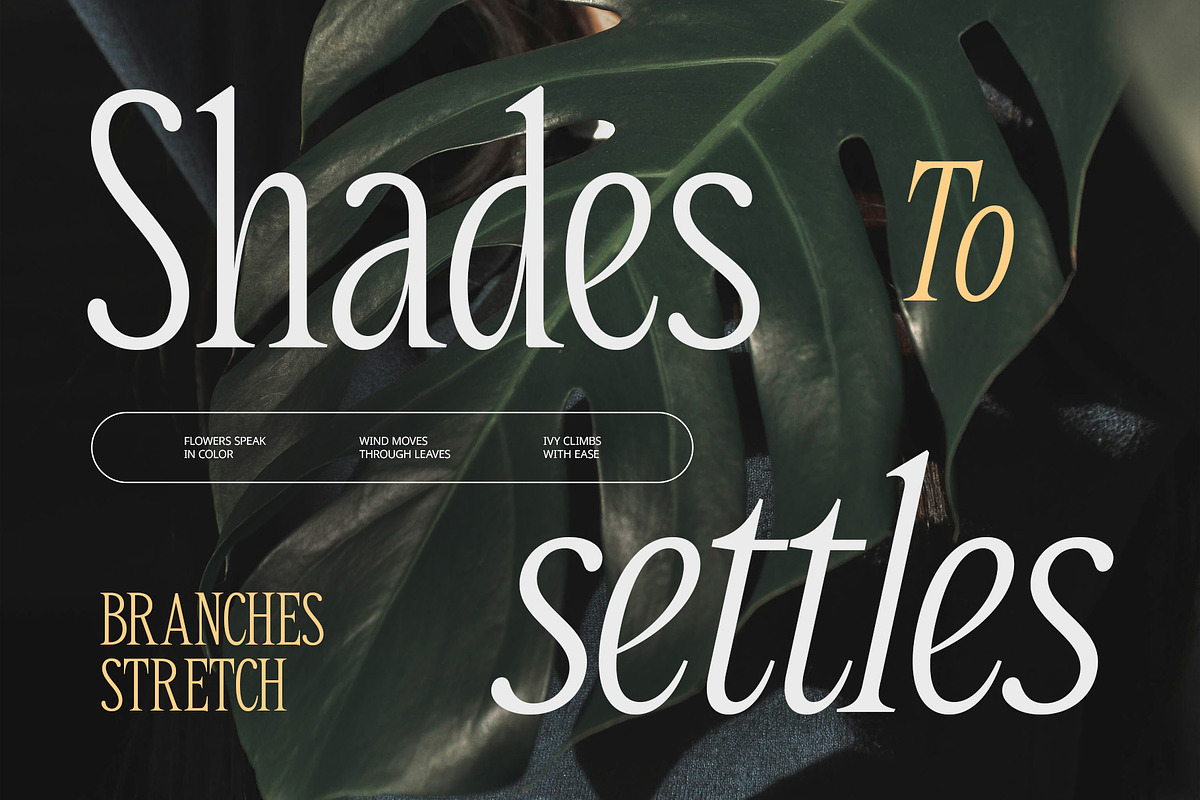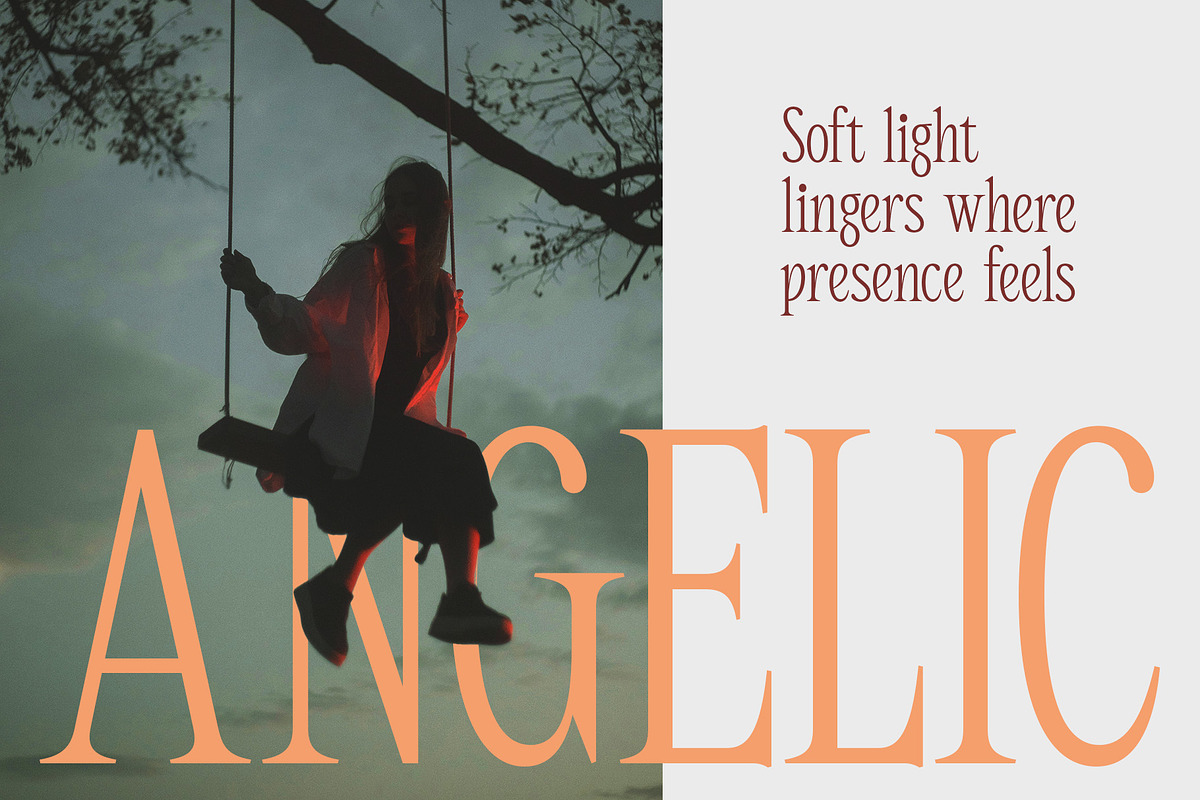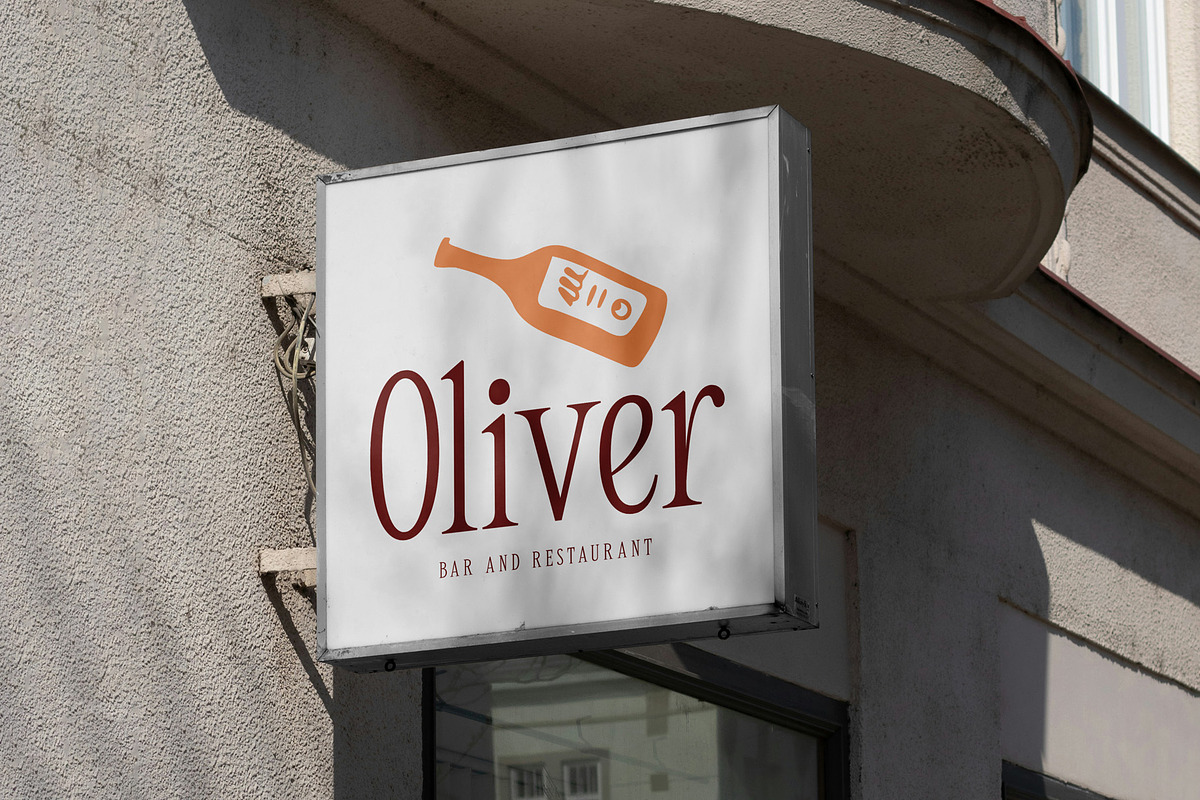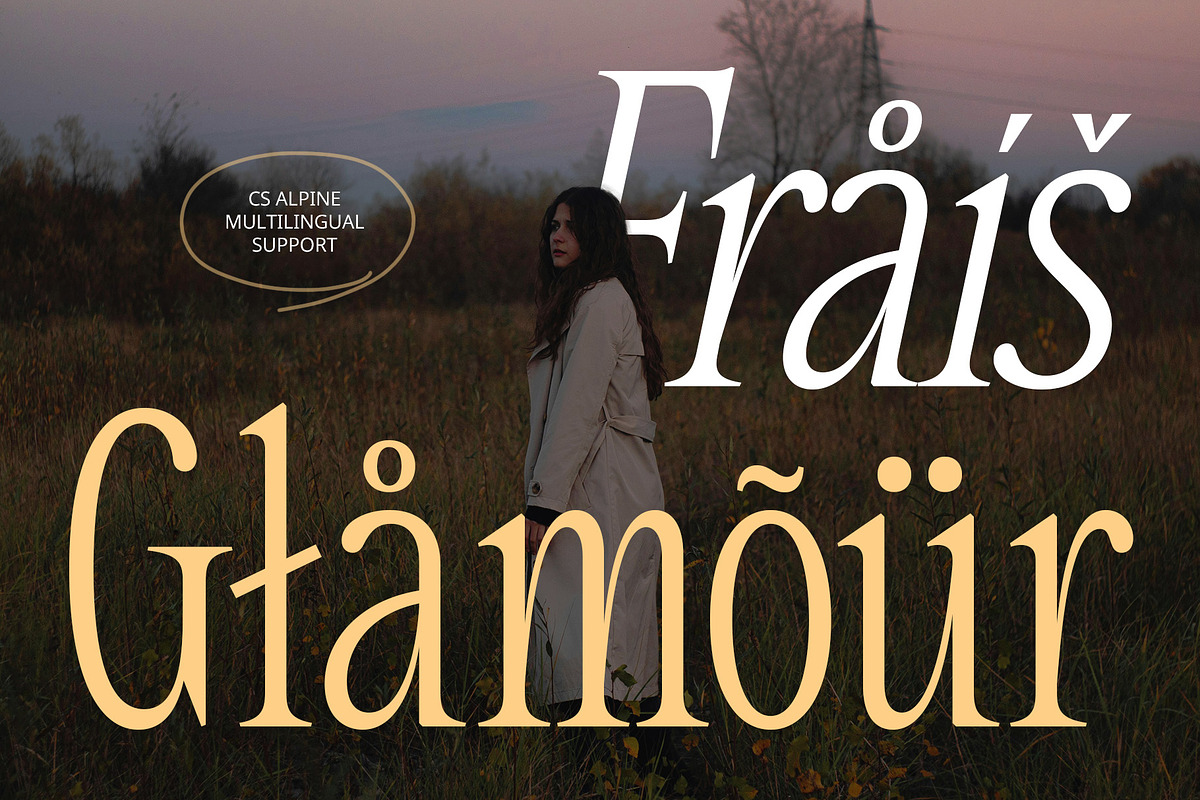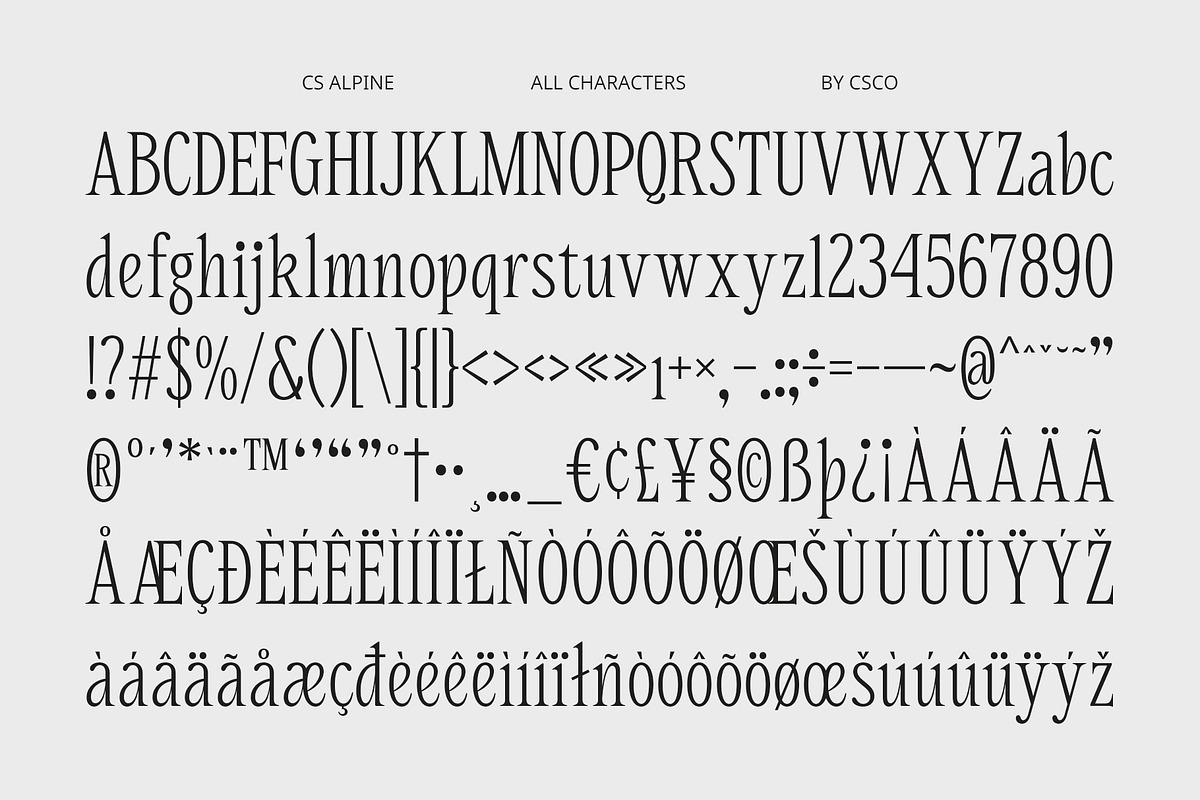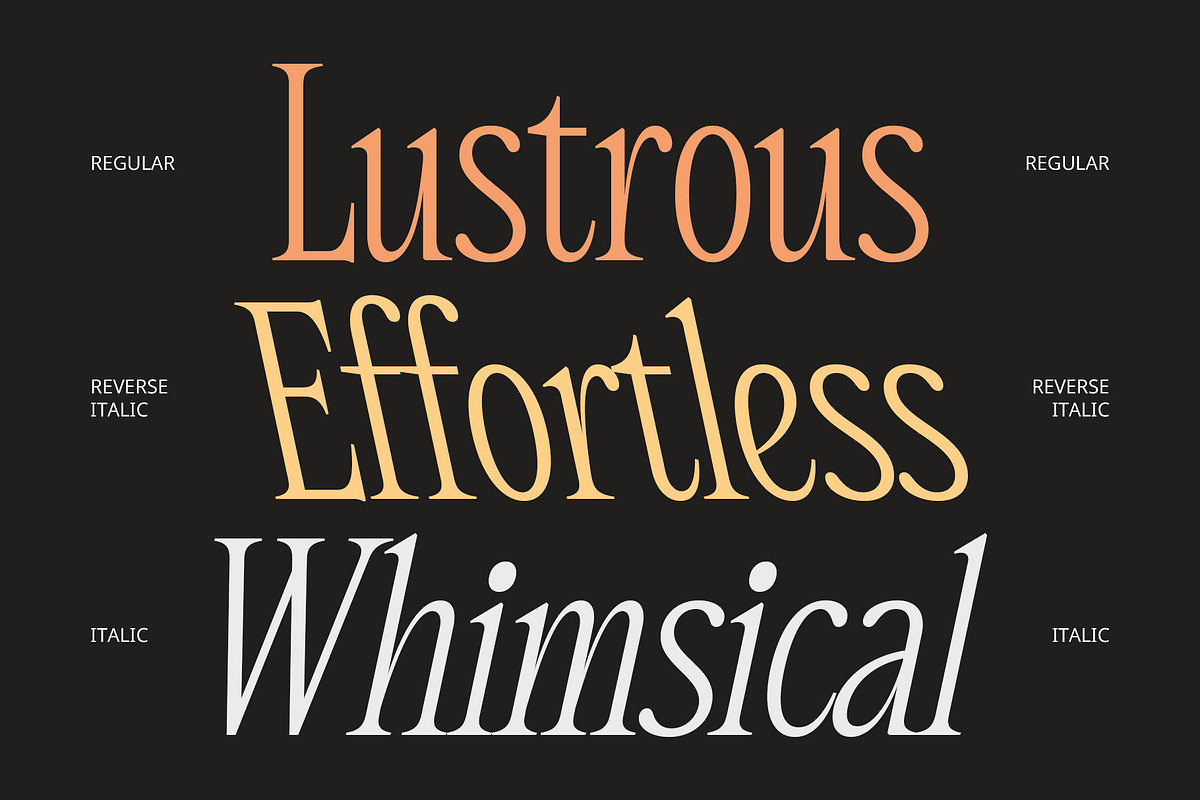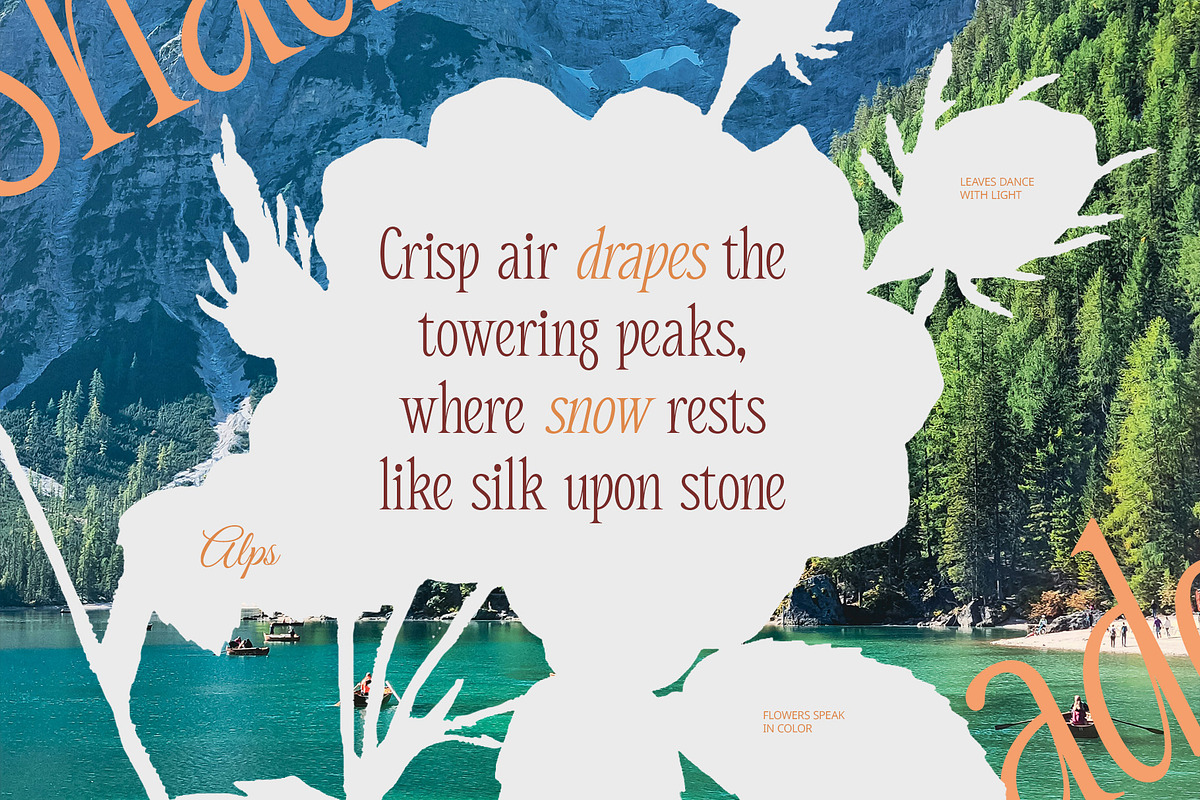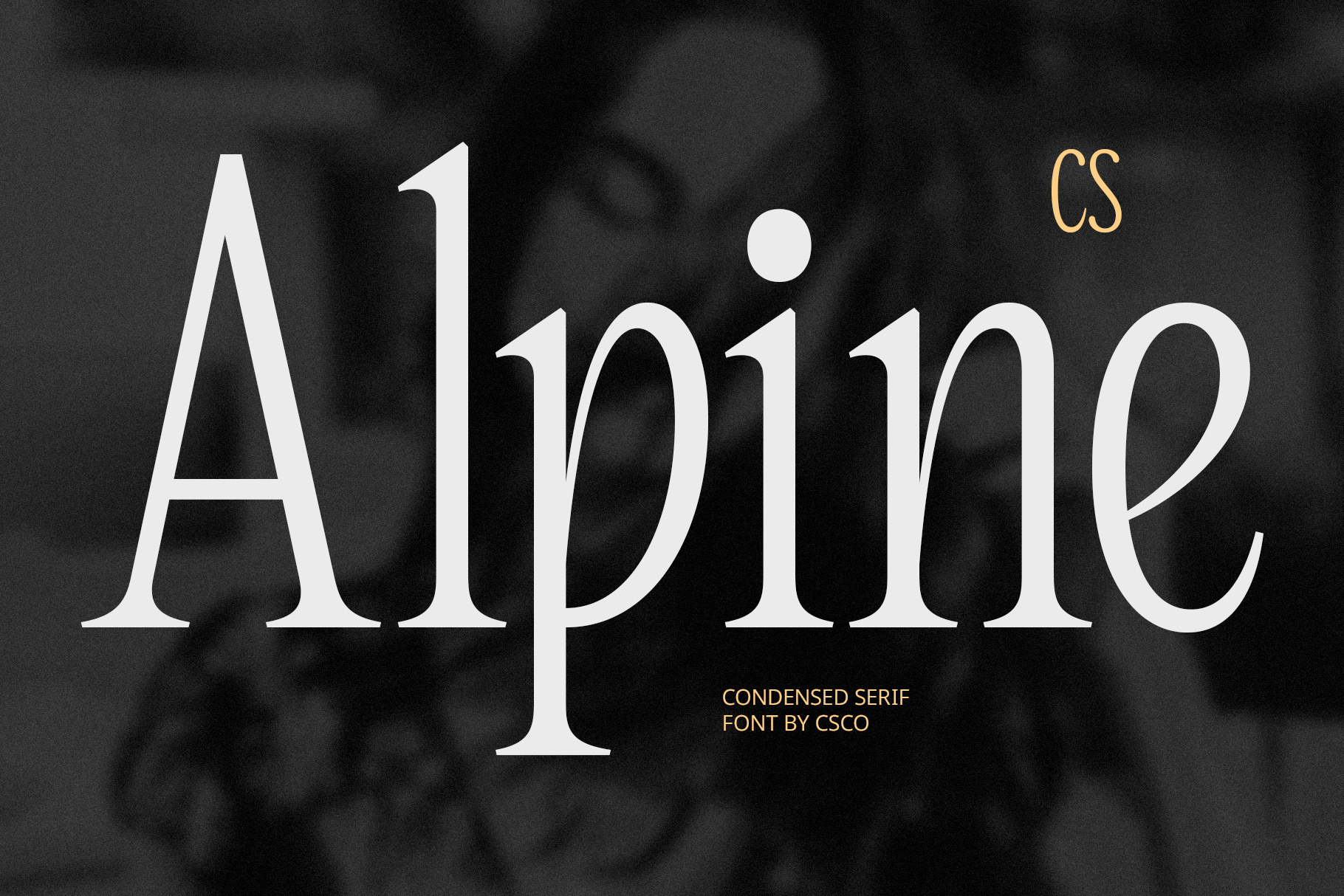
CS Alpine – Contemporary Font
CS Alpine – Contemporary Serif Font for Modern Elegance
Modern Serif Font with Slim Serifs and Condensed Proportions CS Alpine is a refined serif font that blends contemporary minimalism with timeless elegance. It features slim, elongated serifs and a condensed structure that adds sophistication and clarity to any design. The modern proportions give it a clean and structured appearance while preserving a sense of classic beauty.
Condensed Form for Elegant Space Usage Designed with a narrow, vertical structure, CS Alpine is space-efficient without sacrificing style. Its tall letterforms allow more content to fit in compact layouts, making it perfect for magazine headlines, editorial titles, and upscale product packaging that require both elegance and functionality.
Minimalist and Professional Aesthetic The sleek, minimalist style of CS Alpine exudes professionalism and confidence. Its sharp yet graceful design conveys a modern tone ideal for corporate branding, luxury goods, and business-focused visual identities. The font feels exclusive while remaining approachable and clear.
Ideal for Corporate and Premium Branding CS Alpine is the perfect choice for brands seeking a trustworthy, stylish, and polished identity. Whether you’re designing for high-end magazines, fashion labels, financial firms, or modern packaging, this font brings a contemporary touch to every professional setting.
- CS Alpine Regular
- CS Alpine Italic
- CS Alpine Reverse Italic